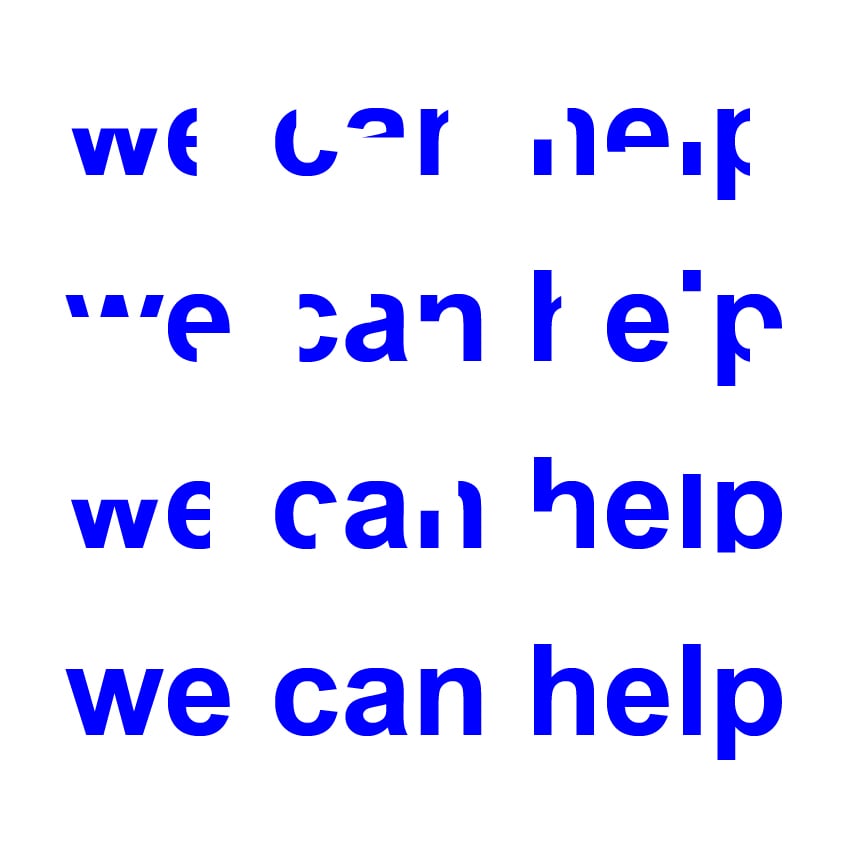
Best Fonts for Dyslexia
Our job as graphic designers is to design legible, clean, and aesthetically pleasing printed and digital pieces. We’ve spent years studying the best fonts for legibility and learning how to use grids for a balanced design and color psychology.
But, we must ask ourselves, are we overlooking some groups when we designing a project? Part of our job should also be creating accessible content to engage a wider and more inclusive audience. About 17% of the world’s population are classified as dyslexic, so why aren’t we paying more attention to making design accessible to more people?
In this article, we'll look at the relationship between dyslexia and design. I’ll outline a few layout tips that you can include in your next project to improve its accessibility. I’ll also provide you with a list of dyslexia-friendly fonts that can help reduce some processing errors for dyslexic readers.
What Is Dyslexia?
Dyslexia is a common learning difficulty that affects an estimated 17% of the world’s population. It's a neurological learning disorder in which some of our brains have trouble identifying letters and words and matching them up with sounds. This results in slow reading and can have other secondary consequences like understanding what’s being read and remembering information.
The way designers treat content, font choices, typographic details and color combinations can affect the way a user with dyslexia experiences a printed piece or a website. The most common problems for dyslexic readers are due to letters swapping, mirroring, and melting together.
Daniel Britton, a student at the London School of Communications, was diagnosed with dyslexia in his last year of university. Britton designed the font Dyslexia to show the difficulties dyslexic readers face when trying to read text. Using Helvetica, one of the most readable typefaces, as a base, he reduced each character's anatomy to have just enough information to decode it. The result is a font that can cause readers the kind of stress and frustration that dyslexic readers face every day.
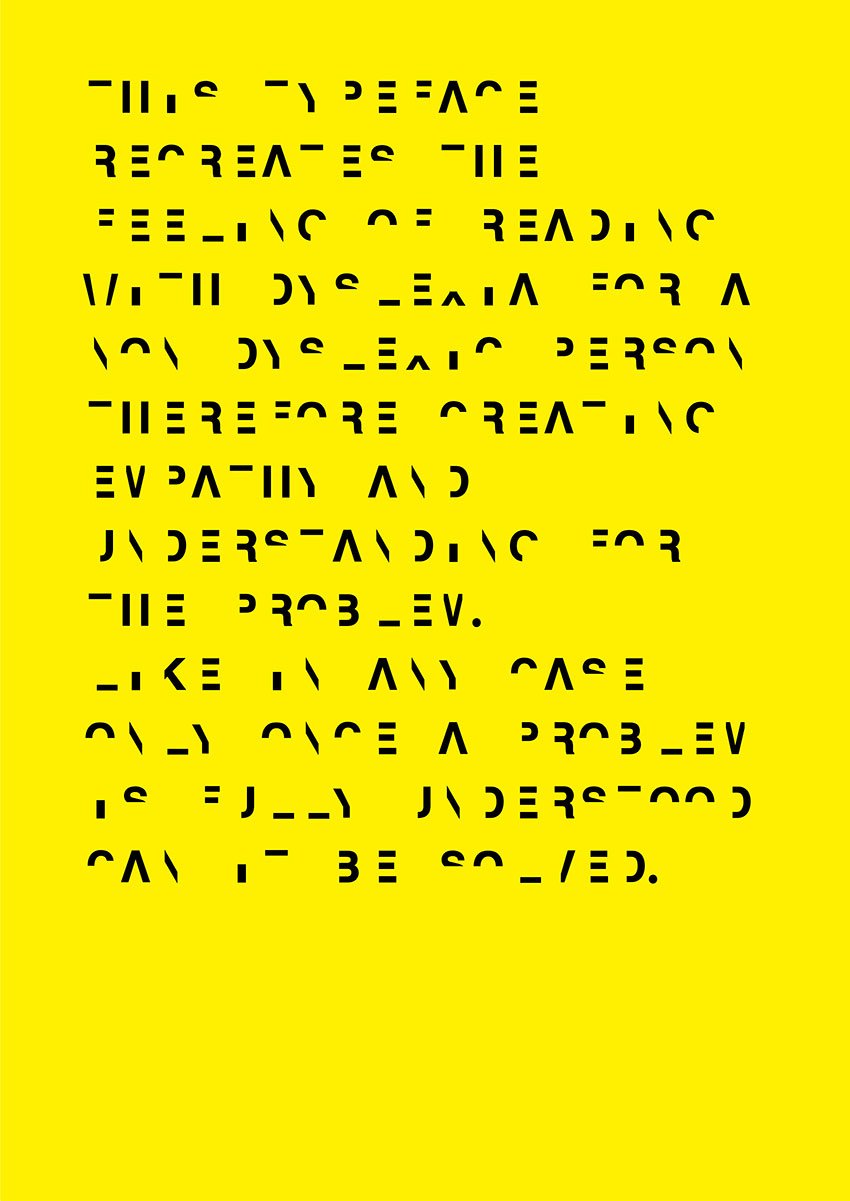
Type Specifications
You have a plethora of fonts to choose from, and they all come in different weights, heights, widths, and shapes. Many people with dyslexia find some fonts easier to read than others. For most non-dyslexic people, fonts that include serifs (e.g. Times New Roman or Garamond) are easier to read due to the “feet” that help connect one letter to the next.
For people with dyslexia, serifs tend to melt the shapes of the letters. In this case, sans serif fonts (e.g. Arial or Comic Sans—yep, you read it right) are preferred because each character can stand on its own, and they look the most similar to handwriting. However, there are a few sans serif fonts that can be more difficult to read than others.
There are some letter combinations that can cause confusion—for instance, pairs like “rn” and “m” look too similar in shape, or a capital “I” can be mistaken for a lowercase “l”. Ascenders and descenders on letters like “b” and “p” need to be prominent as many dyslexic readers rely on remembering visual shapes. Mirrored letters like “b” and “d” can slow down reading.
So how can we help? There are some characteristics that can help with legibility. When you are designing print or on-screen work, pay special attention to these points:
- Use a larger than usual font size, between 12 and 15 points.
- Avoid using all capitals as they can blend in together.
- Italics and underlined words are also found to impair reading.
- Set headings to be 20% larger than the body copy.
- Set the style of headings to bold to help distinguish it from the rest of the text.
- Keep text aligned left and use an appropriate column width (45–75 characters).
- Avoid tight tracking and leading as letters and text lines can look as if they are merging.
- Use lightly colored backgrounds and avoid printing on glossy paper.
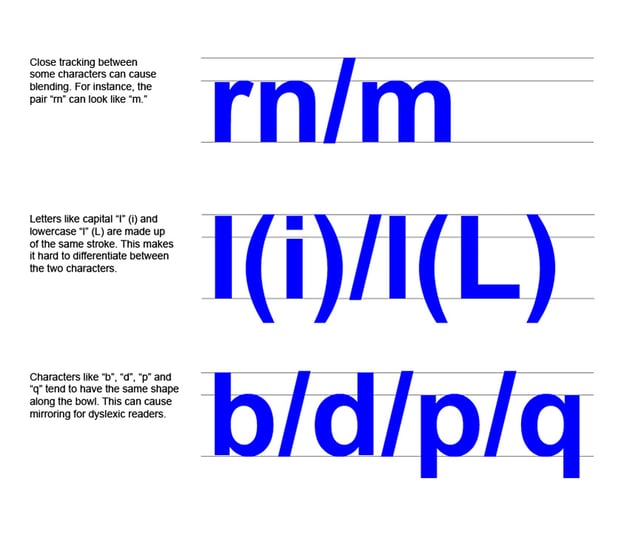
Best Fonts for Dyslexia
Over the years, there have been several fonts designed specifically for dyslexic readers. There are two studies (Good Fonts for Dyslexia and the thesis Special Font for Dyslexia?) that looked into the effect of using exclusive dyslexia-friendly fonts amongst students who have the disability. Both dyslexia font research papers didn’t find significant improvement in using special fonts, but they may help with some related errors. It is important to say that dyslexia isn’t the same for everyone—some may experience it differently than others.
You can use the following fonts for printing or on screen (computer and even smartphones!). Let’s take a look at some of the dyslexia-friendly fonts that have been developed in the last few years:
Dyslexie
Dyslexie was specially developed and designed for dyslexic readers by Christian Boer in 2008. While it is informal, it was originally designed to make learning more fun. In this font designed for dyslexia, each letter is individually shaped so every character is unique to avoid confusion with other characters that might look similar.